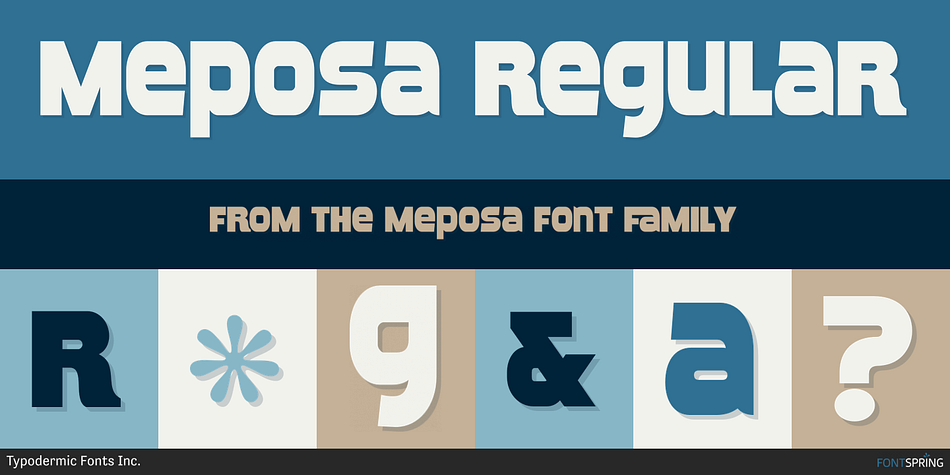
Meposa Regular
Meposa is a display and grunge font family. This typeface has two styles and was published by Typodermic Fonts Inc.
Meposa is more than just a typeface; it is a bold statement of individuality and creativity. It’s a unique, tough, and quirky design that defies convention.
Meposa’s mixed-case letters with open apertures deviate from the traditional roots of wood-block typography, bringing a fresh and modern twist to an old-school classic. This hybrid typeface is an amalgamation of various design elements from different eras and cultures. The result is a unique and mesmerizing typeface that defies categorization.
Meposa also draws inspiration from the 1970s custom van culture, where artists and designers would showcase their creativity by customizing their vehicles with bold and colorful graphics. This typeface channels that same spirit of creativity and individuality, inviting you to break the mold and think outside the box.
With historical wood type influences, Meposa pays homage to the timeless and authentic craft of typography. Yet, it also features retro-tech and modern design elements, resulting in a truly one-of-a-kind typeface that bridges the past and the present.
In summary, Meposa is a unique and tough display typeface that is both historical and modern, quirky and bold. Its mix of design influences makes it an ideal choice for anyone looking to break the mold and stand out from the crowd. Whether you’re a graphic designer or a creative professional, Meposa is sure to leave a lasting impression.